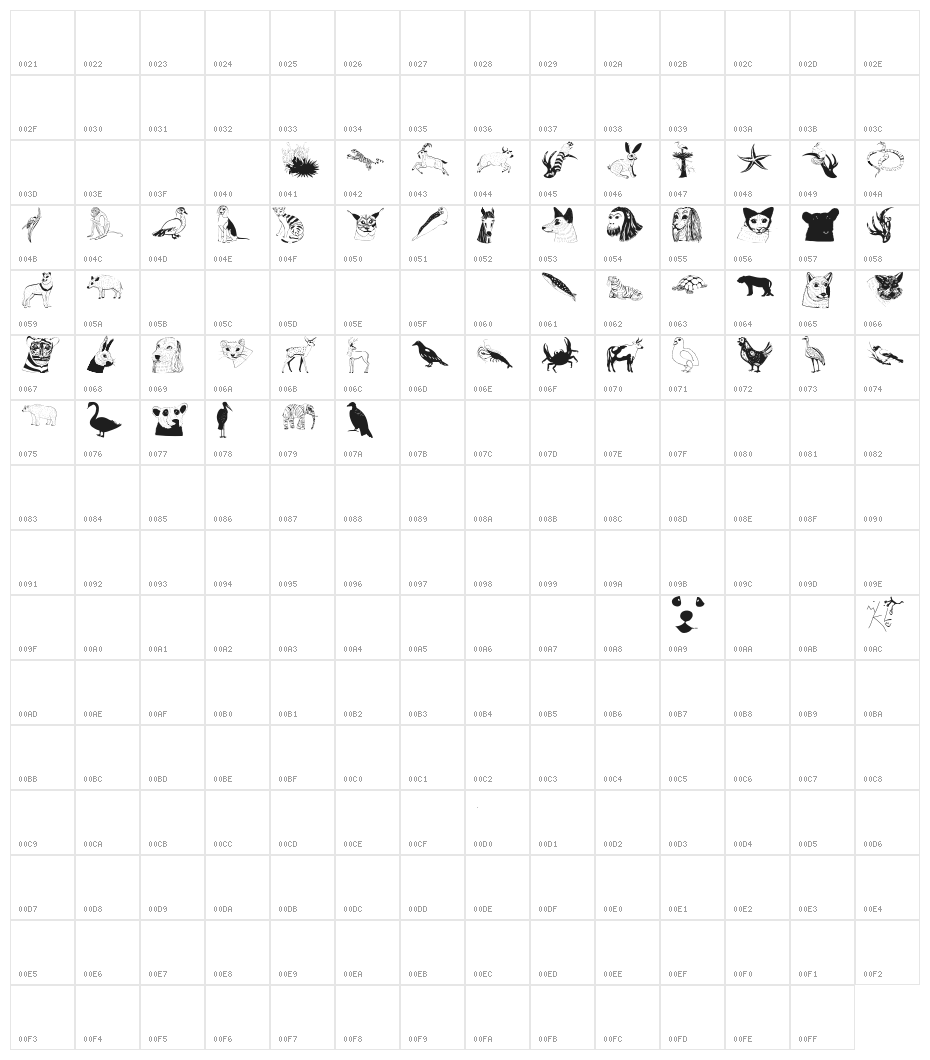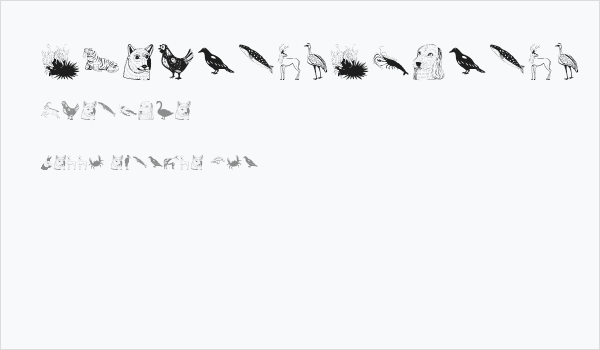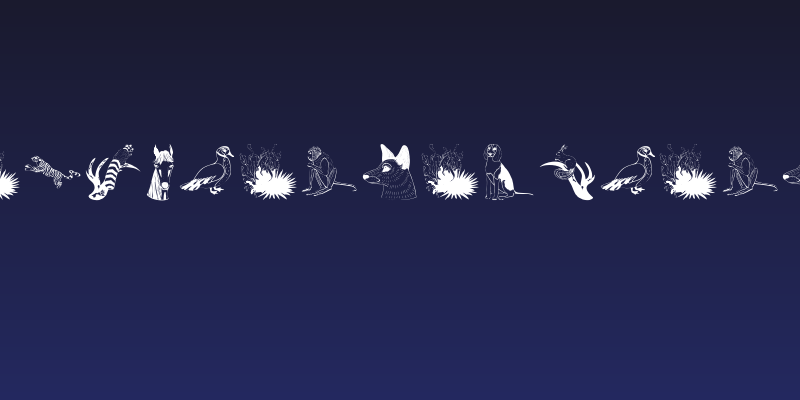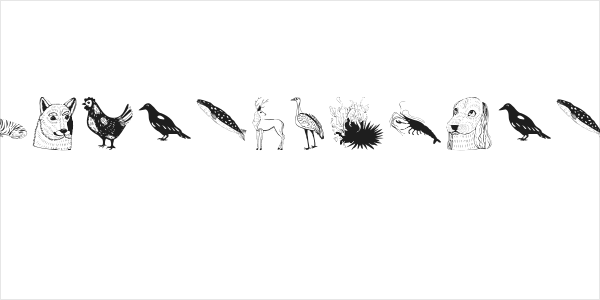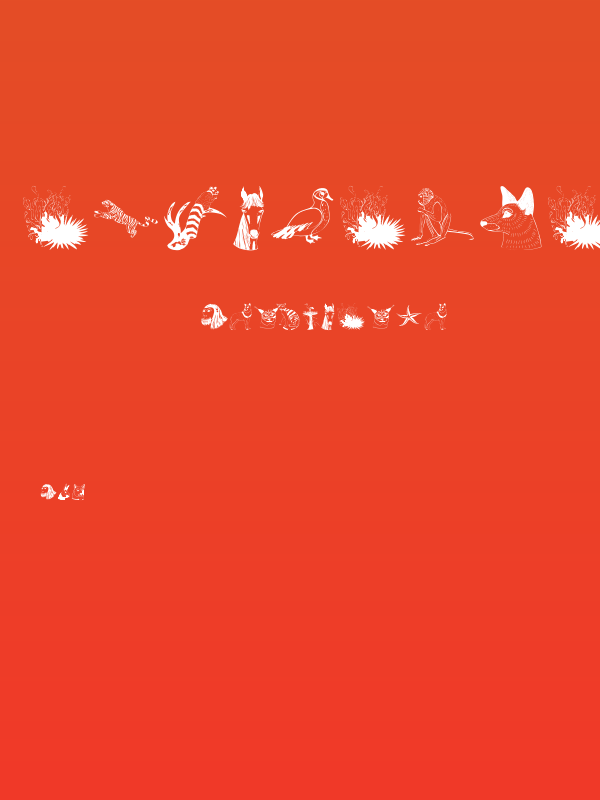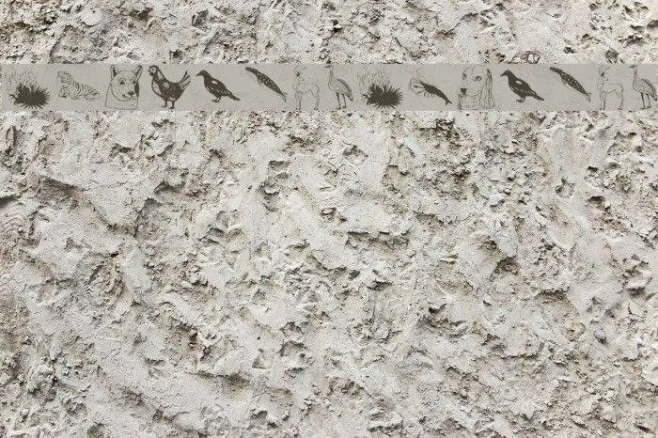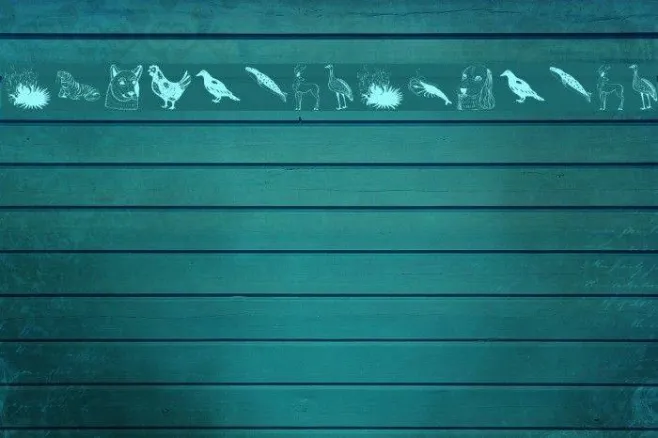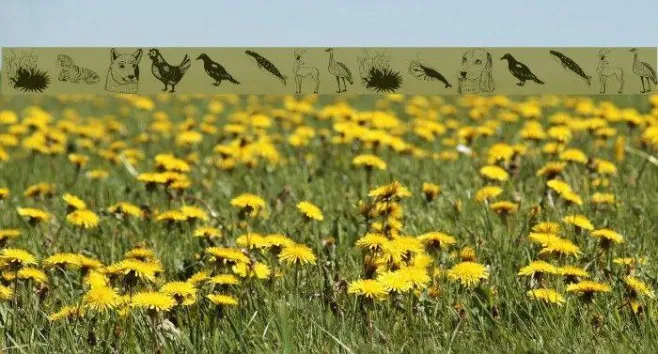
AbermalsAnimals Font
AbermalsAnimals Description
A decorative font composed entirely of hand-drawn animal illustrations, each character represented by a unique animal or animal head in a sketchy, detailed black and white style. The glyphs are whimsical and organic, with varying line weights and playful interpretations of animal forms.
| Overall Style | Decorative, Whimsical, Hand-drawn |
| Use Case | Display, Posters, Themed projects, Educational materials |
| Proposed Projects | Children’s books, educational materials, animal-themed posters, playful branding, creative invitations. |